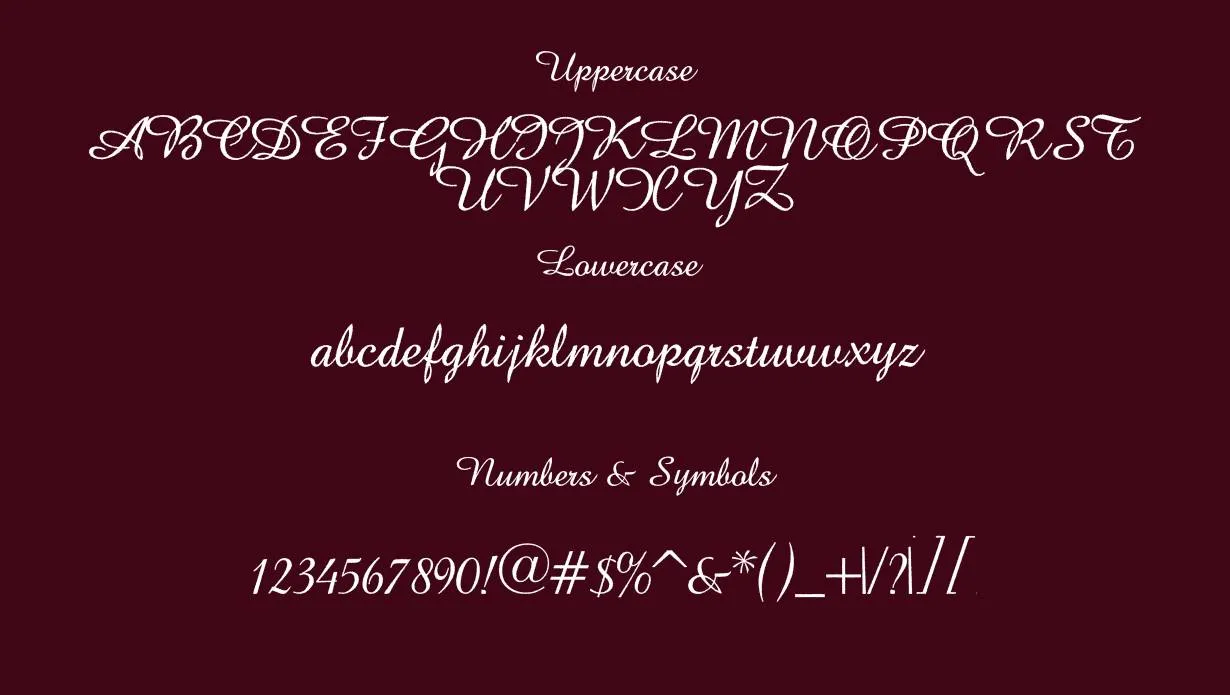
Abbeyline Font is a playful and decorative typeface known for its imaginative and whimsical design.
It’s often used in children’s books, party invitations, and creative branding, adding a touch of creativity and charm to the visuals.
The font’s unique and quirky letterforms create an element of joy and creativity in your design work. The Kaushan Script Font offers a comparable style and characters, making it a suitable substitute for the font mentioned.